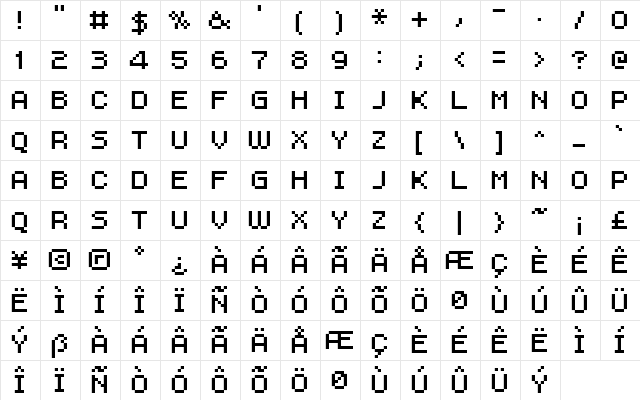
FFF Professional Extended Regular
Design Context for FFF Professional Extended Typeface
FFF Professional Extended is a composed and adaptable typeface that performs quietly and consistently across a wide range of design contexts.